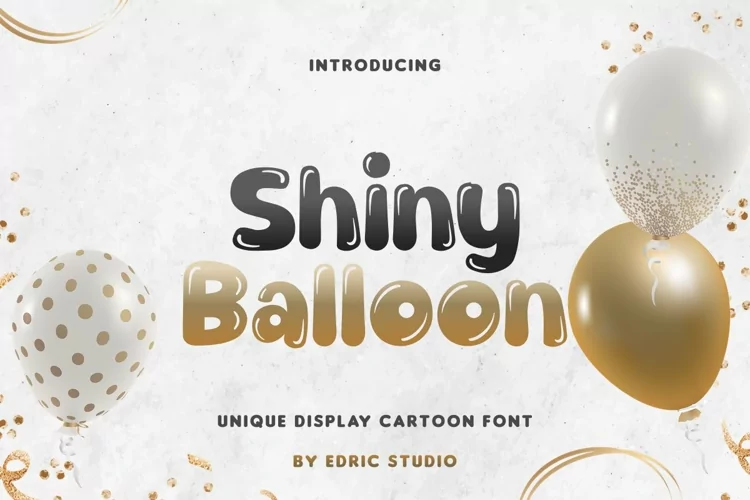
Shiny Balloon
Shiny Balloon Font is a playful display font with cartoon style, created by EdricStudio. This letter has a smooth line effect on every corner that makes it look shiny. Specially made for birthday celebration and suitable for other industries, such as apparel, bakery, entertainment & tv show, event tenant, fashion, toyshop, etc.
Shiny Balloon Font comes with a full set of Uppercase and Lowercase Basic Characters, Number, large range of Punctuation, and Symbol. It has a stunning characters set, perfectly managed with well spaced and kerning. Shiny Balloon Font will be great for any projects (with extended ) including : brand logo, custom design, envelope, greeting card, invitation, printed materials, poster, product packaging, signage, title, etc.